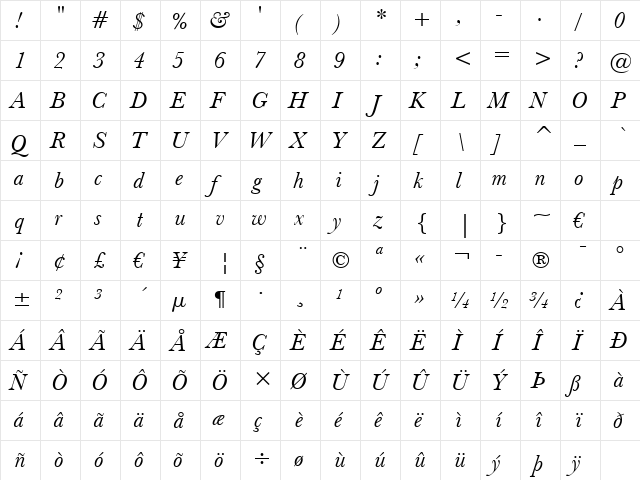
Baskervlle2 BT Italic
Design Context for Baskervlle2 BT Typeface
Baskervlle2 BT is a composed and adaptable typeface that performs quietly and consistently across a wide range of design contexts. Its italic angle brings a sense of urgency and motion to the letterforms.
Pro Tip: Try Baskervlle2 BT for annotation and caption copy alongside an upright companion — the contrast in angle creates a dynamic but ordered typographic system.